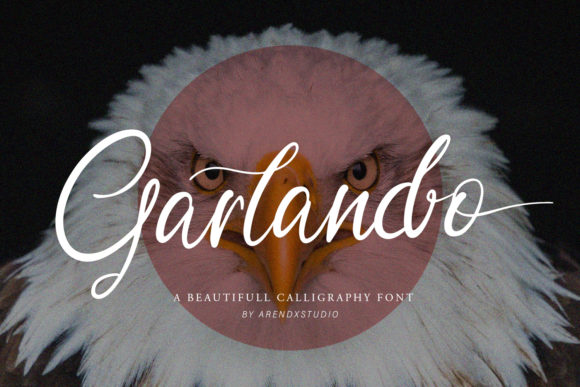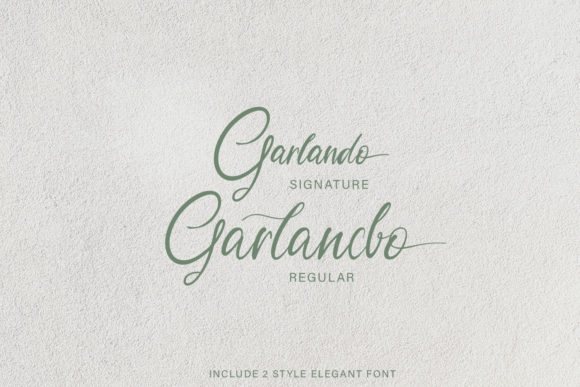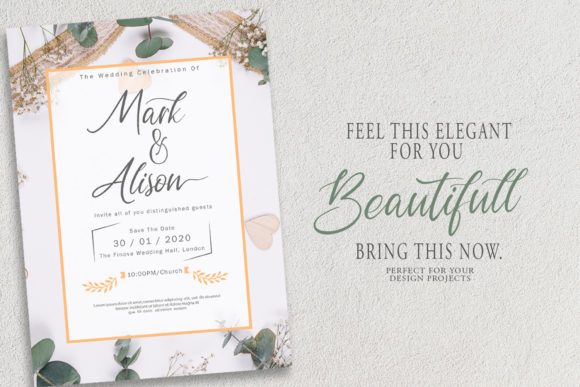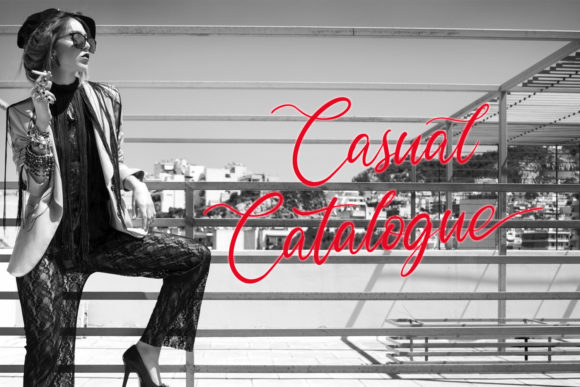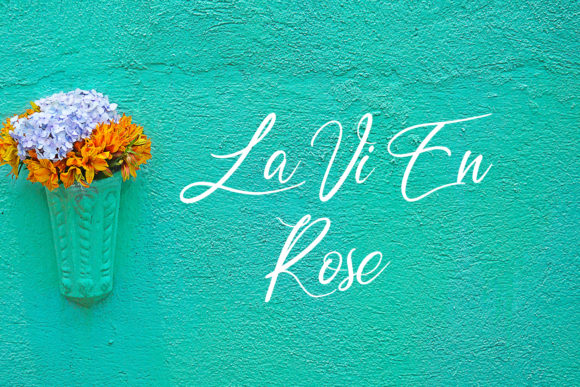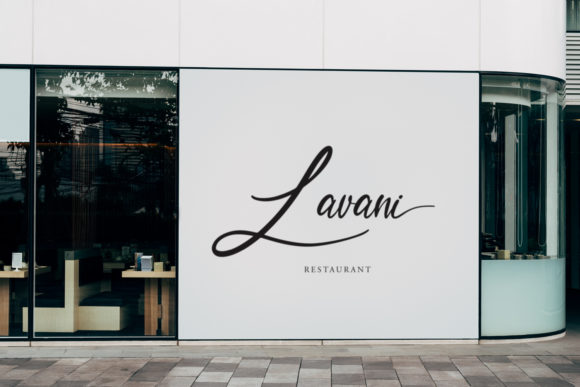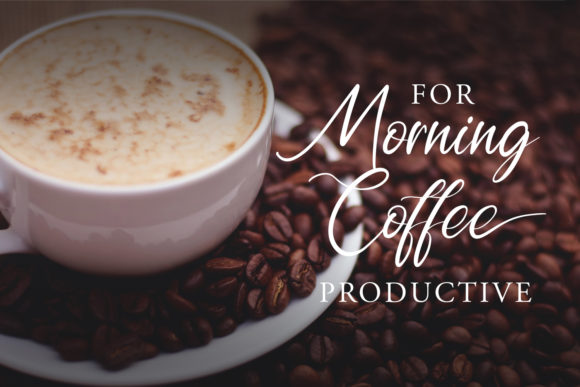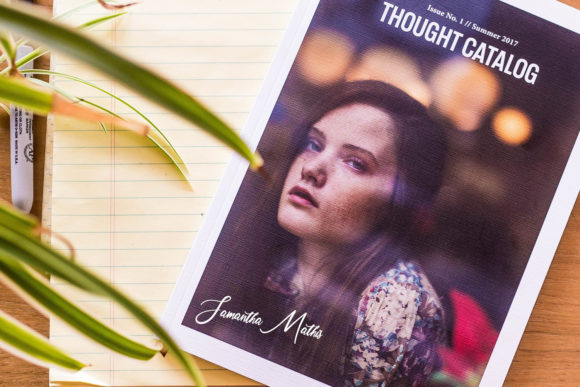
Garlando Font
About Garlando Font
Garlando features distinct characters that make this script font look incredibly elegant and fancy. Fall in love with this stunning homage to calligraphy.